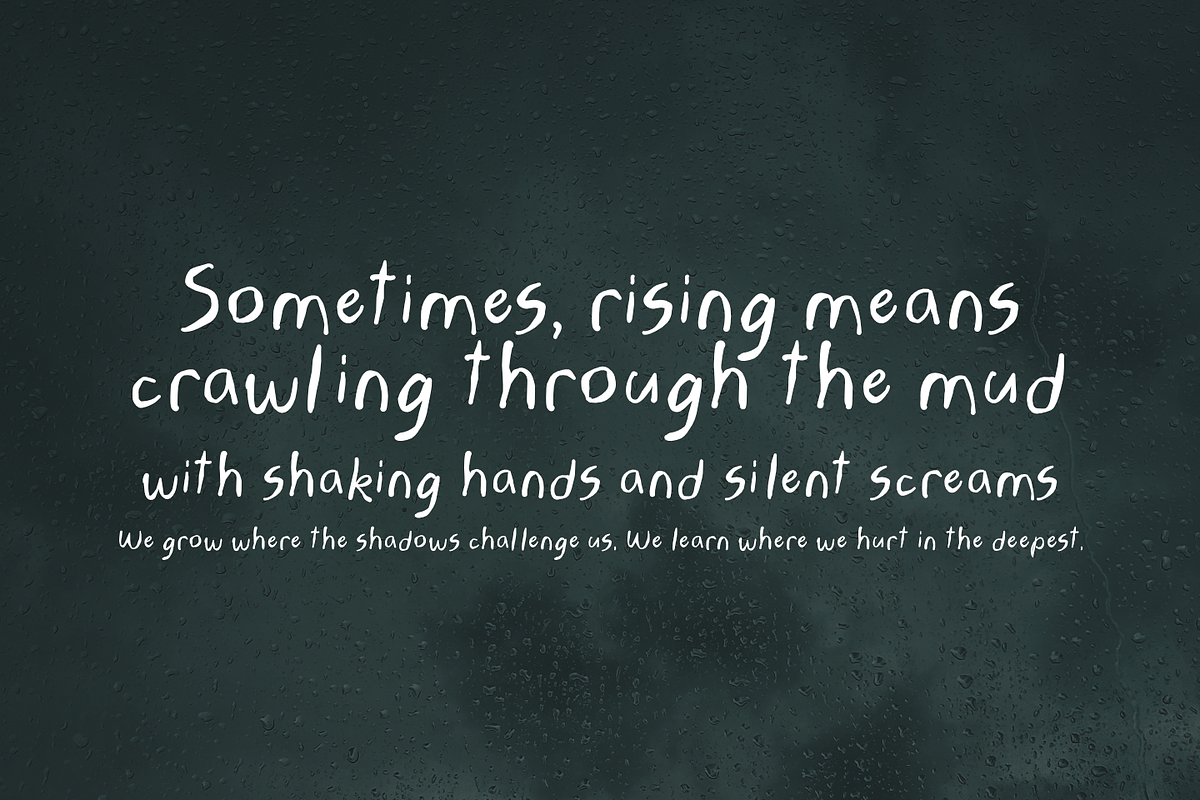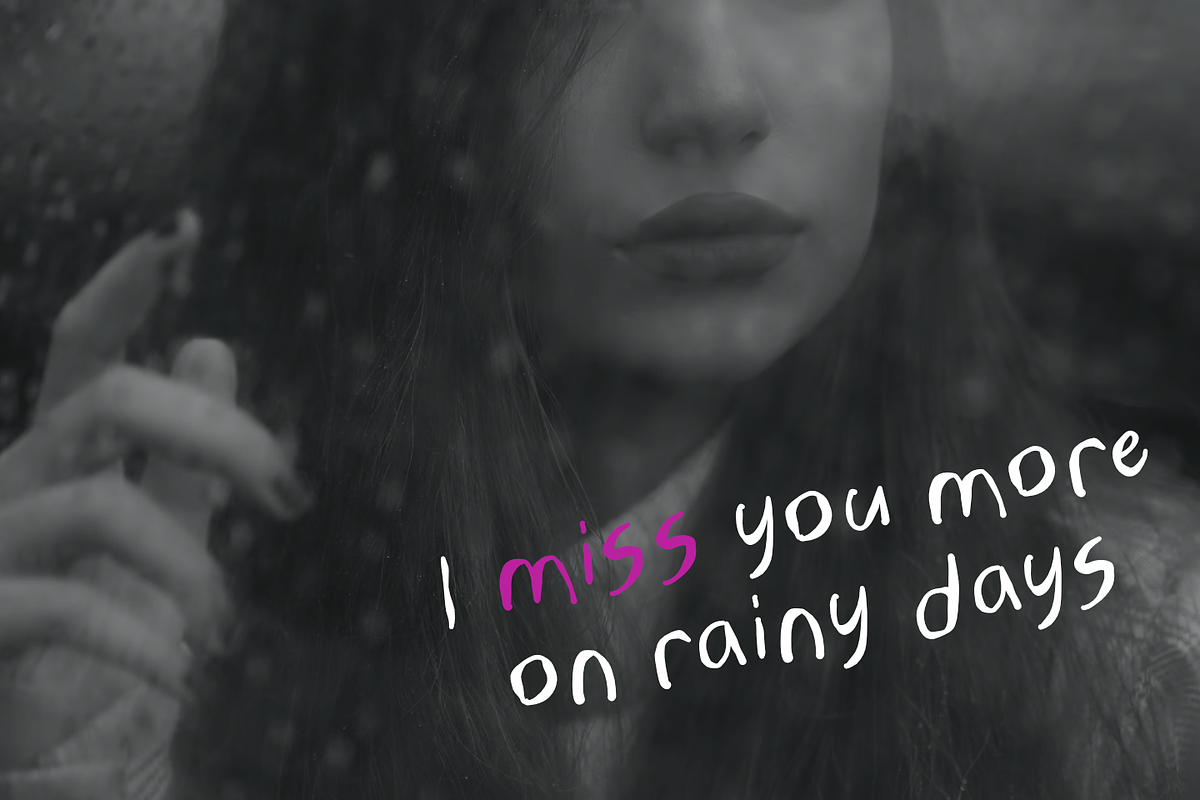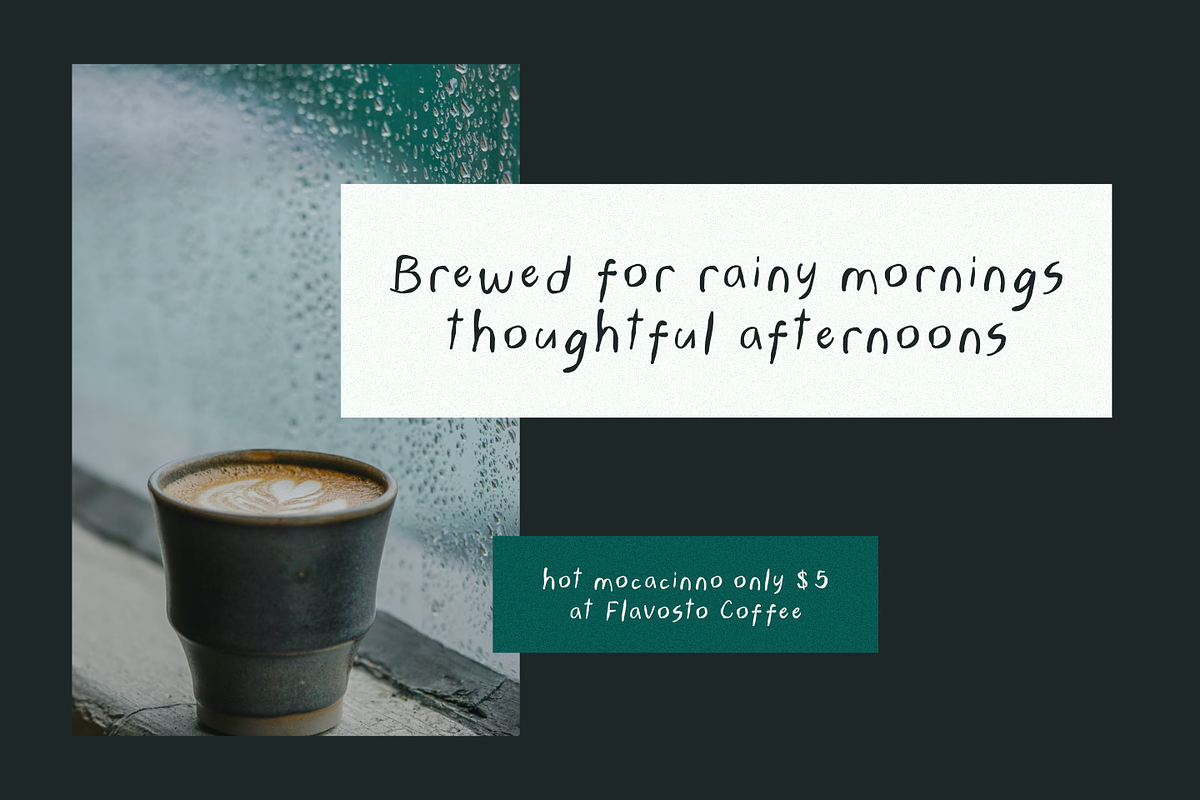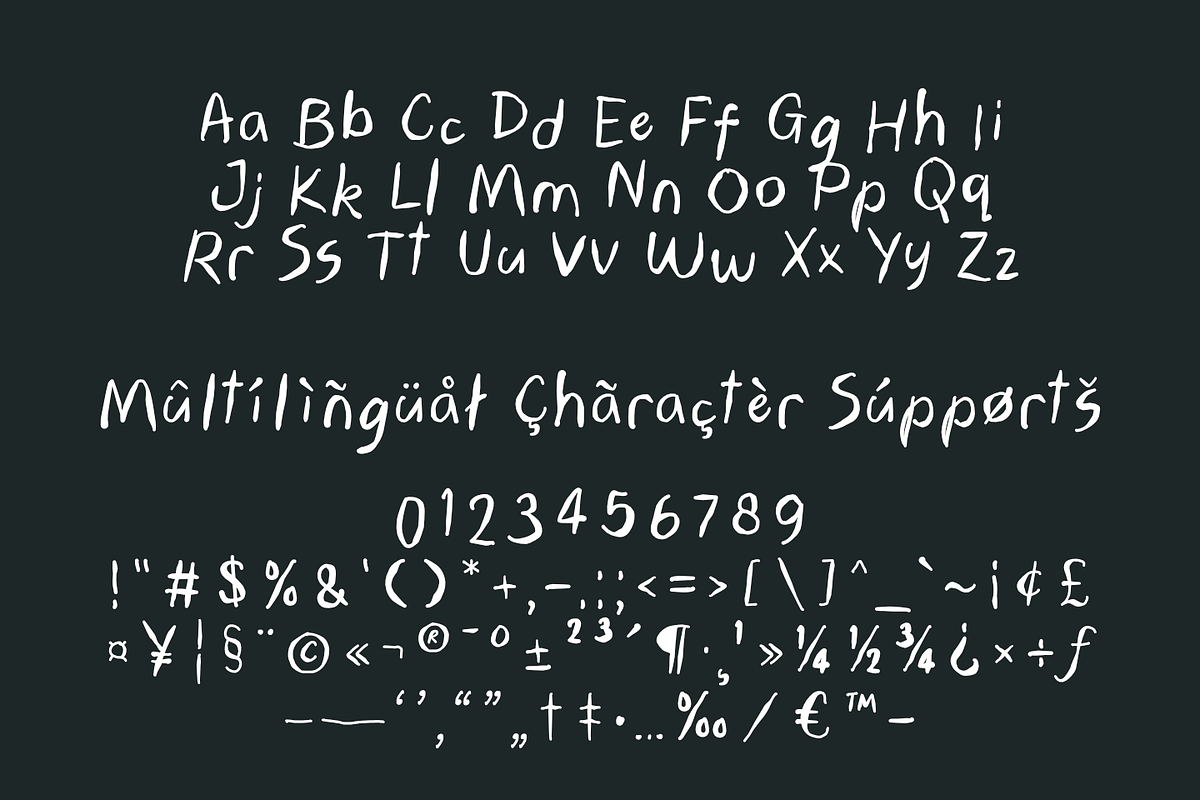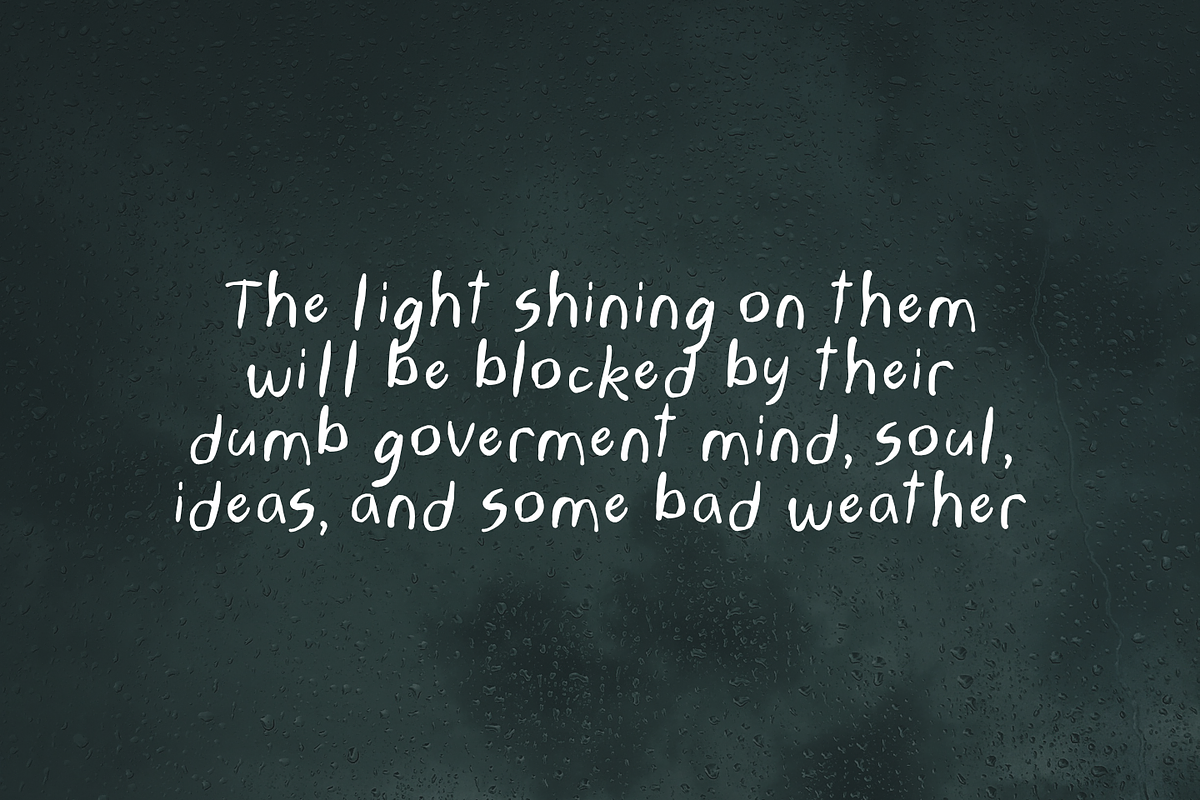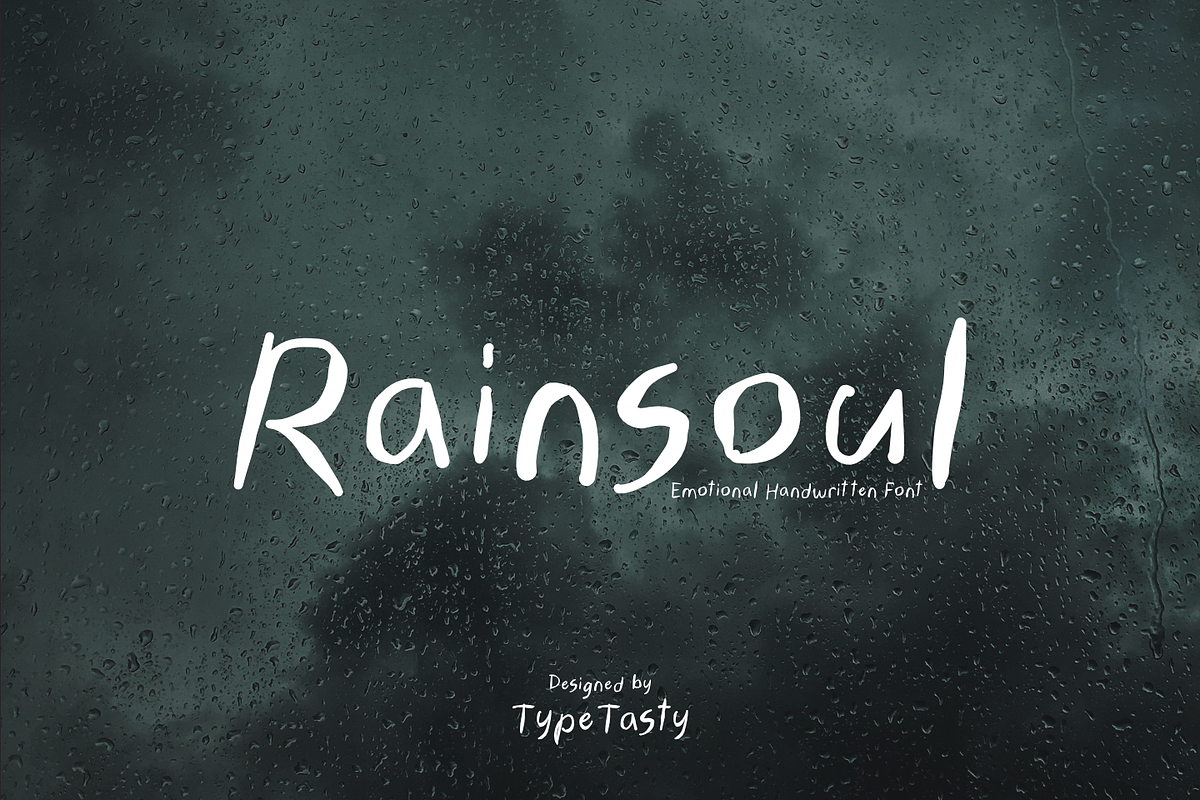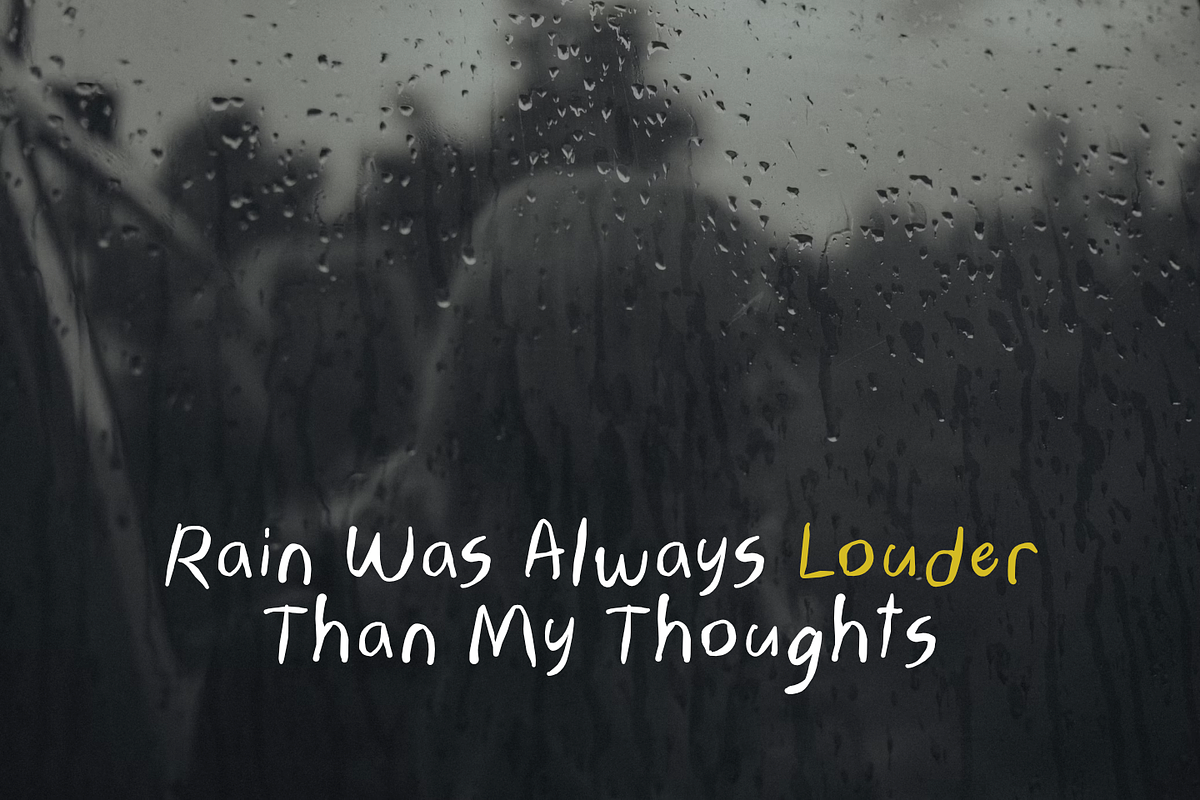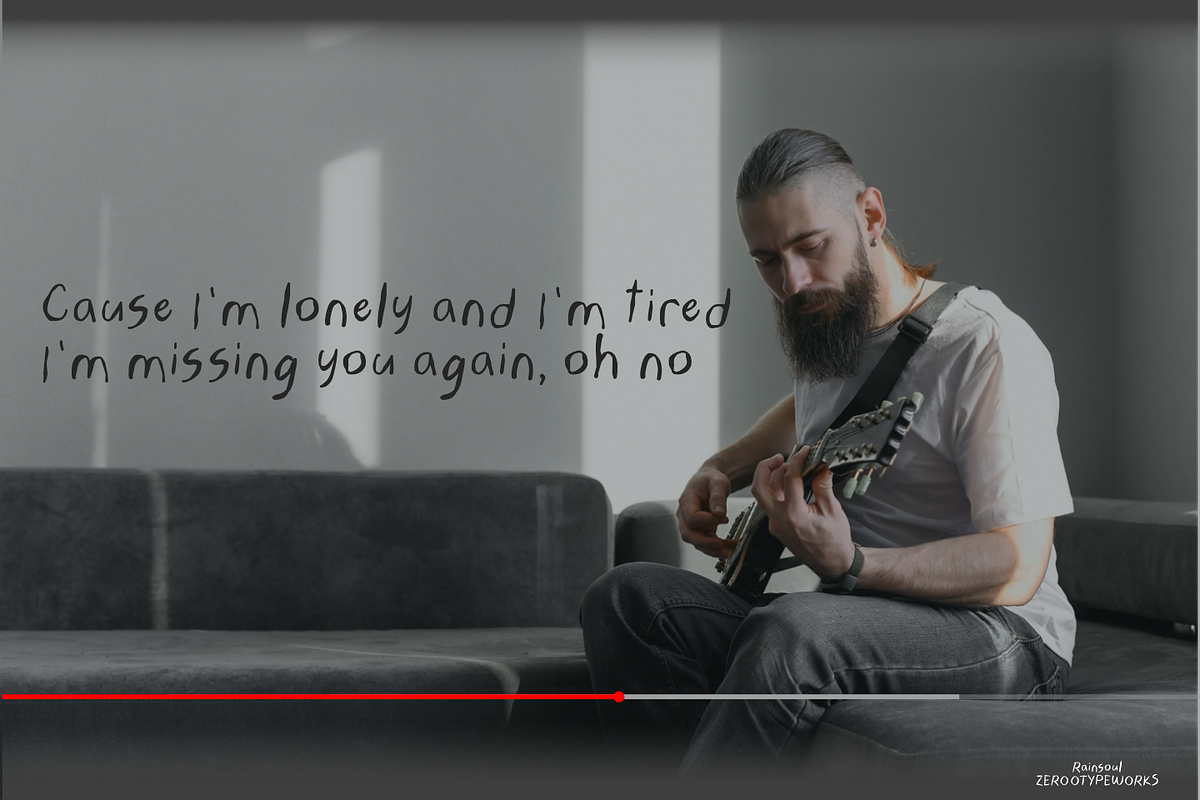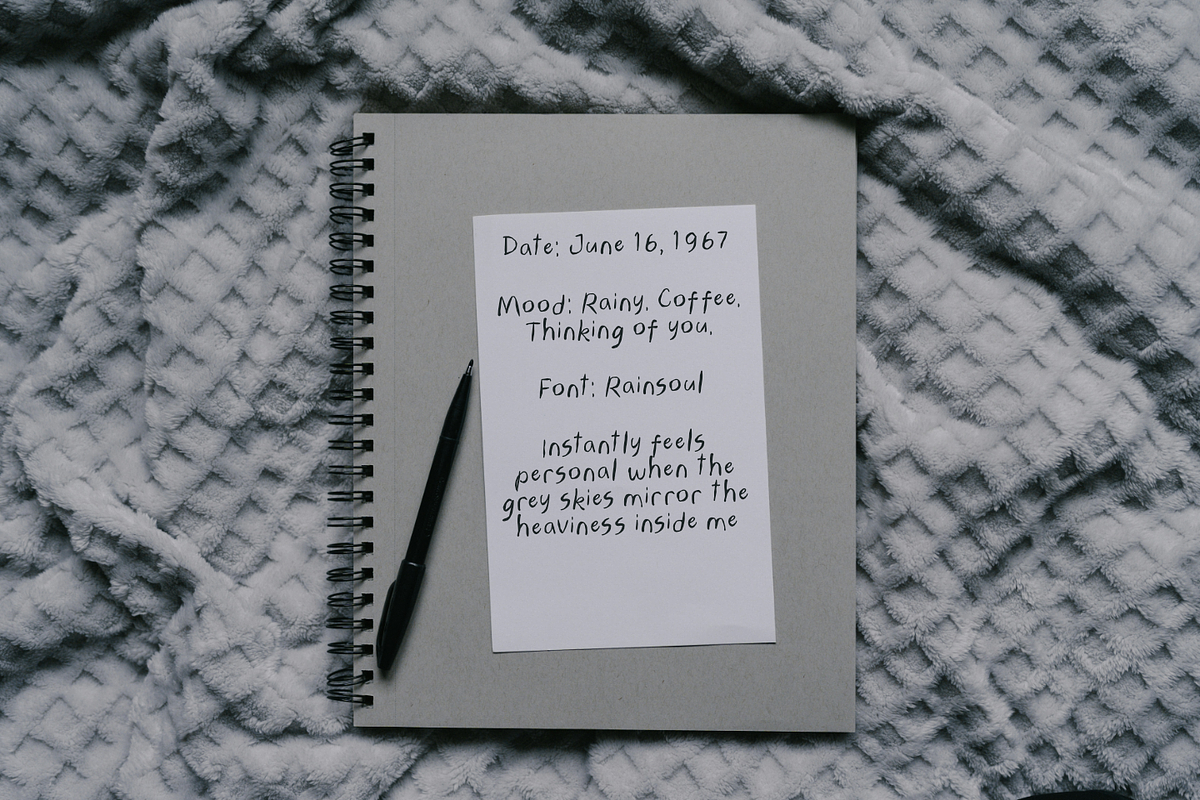
Rainsoul – Handwritten Font
Rainsoul is an emotional handwritten font with soft curves and a natural writing rhythm. Its slightly uneven structure gives it an authentic, intimate look like notes scribbled on a rainy afternoon. Ideal for poetry, minimalist branding, emotional storytelling, or music-related visuals, Rainsoul adds depth and human warmth to your design.
Rainsoul is a handwritten font that captures the quiet intensity of a rainy day. With natural letter shapes and soft irregularities, it feels like a diary entry written in solitude — perfect for designs that crave honesty and emotion.
Its raw yet elegant form is perfect for:
- Poetic quotes
- Book covers
- Music-related visuals
- Journaling templates
- Emotional branding
This font brings out the human side of typography — organic, personal, and deeply expressive.
Need a font that speaks softly but hits deep? Rainsoul delivers emotion in every stroke, bringing introspective warmth to your visuals — ideal for artists, writers, and storytellers.
🌧 Natural Handwritten Feel
- Imperfect yet balanced letterforms bring authenticity to your design.
🌧 Soft & Expressive Rhythm
- Slight tilt and flow evoke a sense of reflection and depth.
🌧 Rainy, Poetic Aesthetic
- Ideal for emotional content, love letters, rainy-day branding, and more.
🌧 Perfect for Personal Branding
- Use it in music promotions, minimalist designs, zines, or YouTube intros that aim to feel heartfelt and personal.